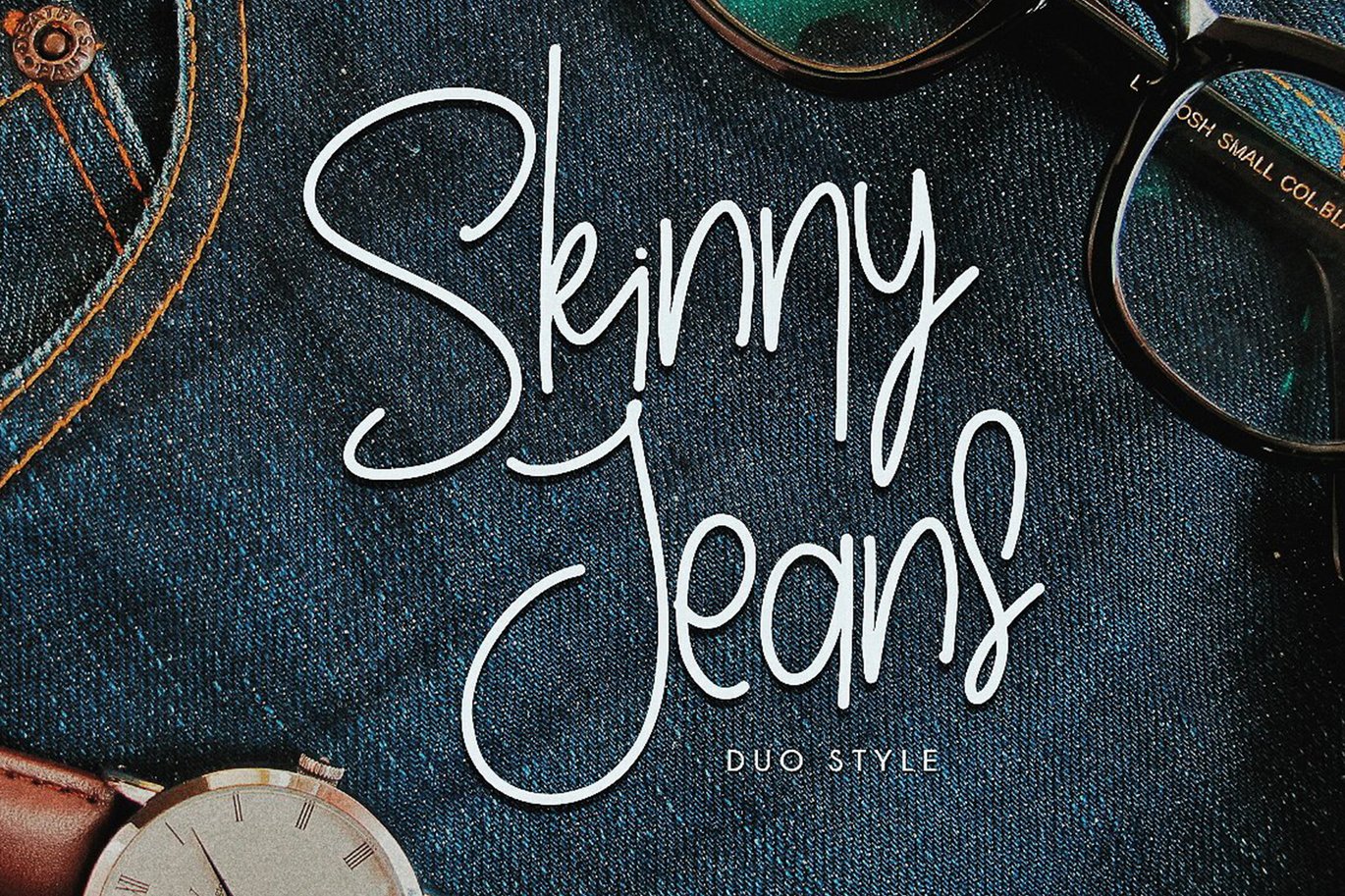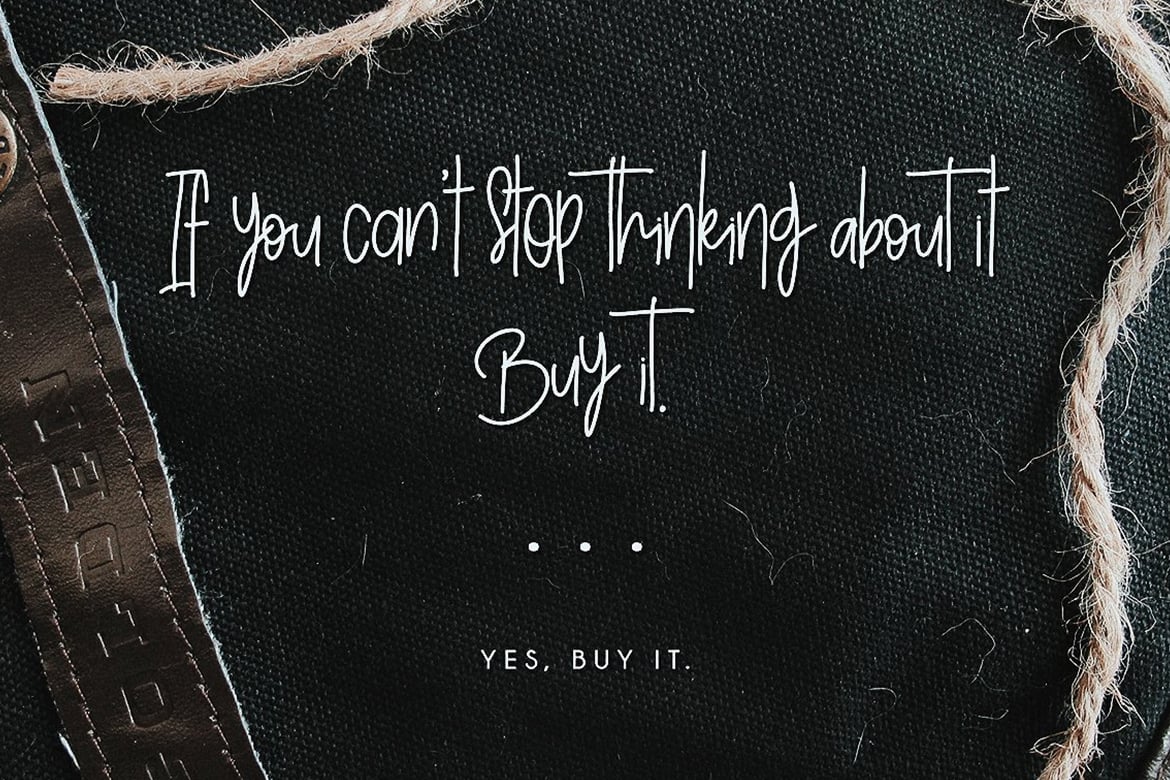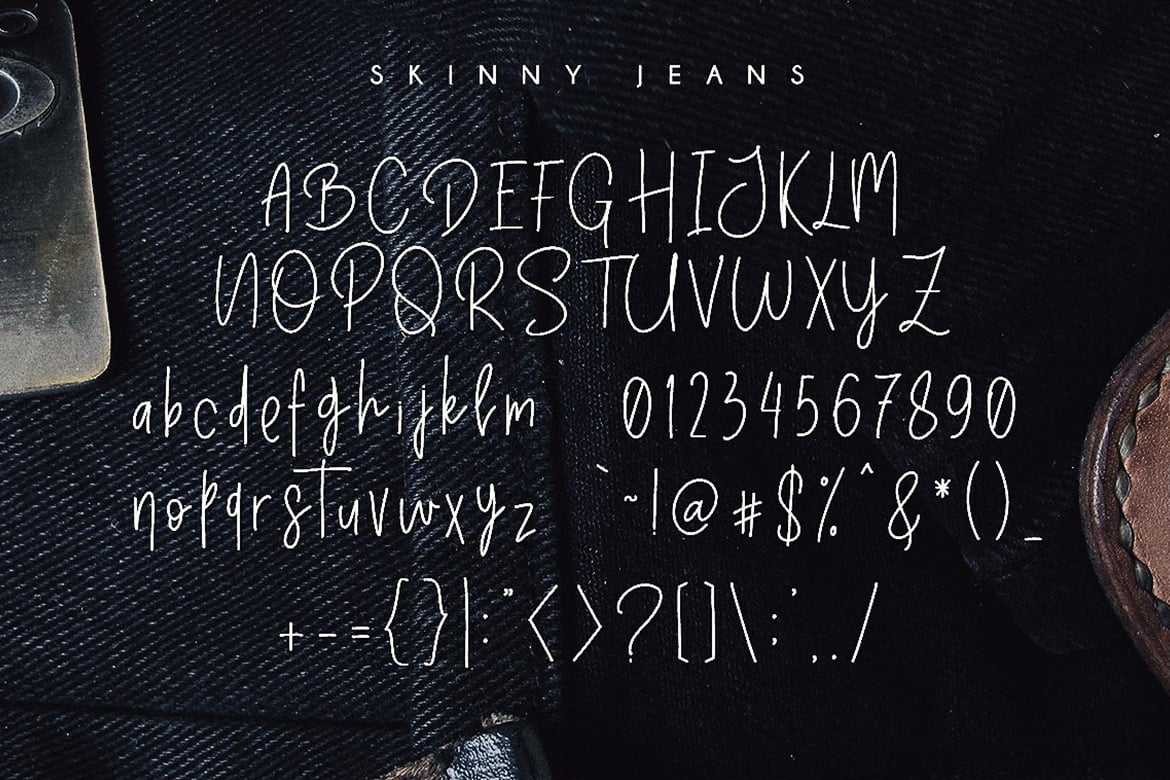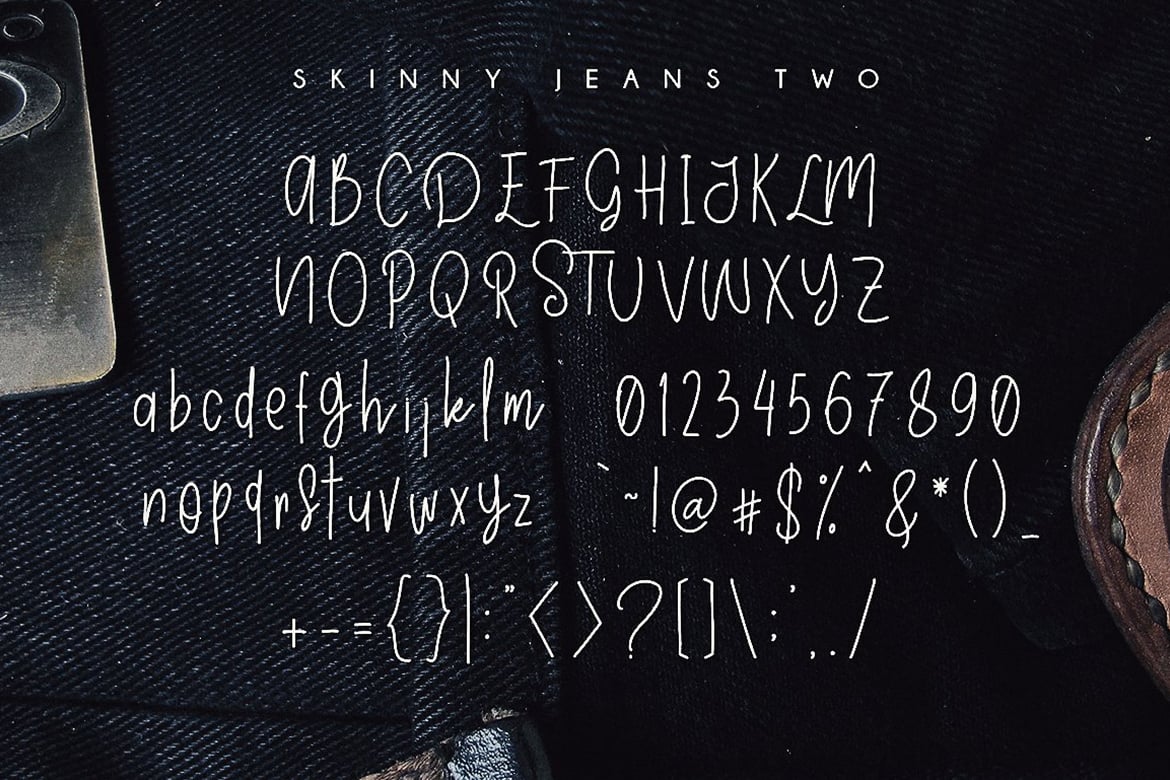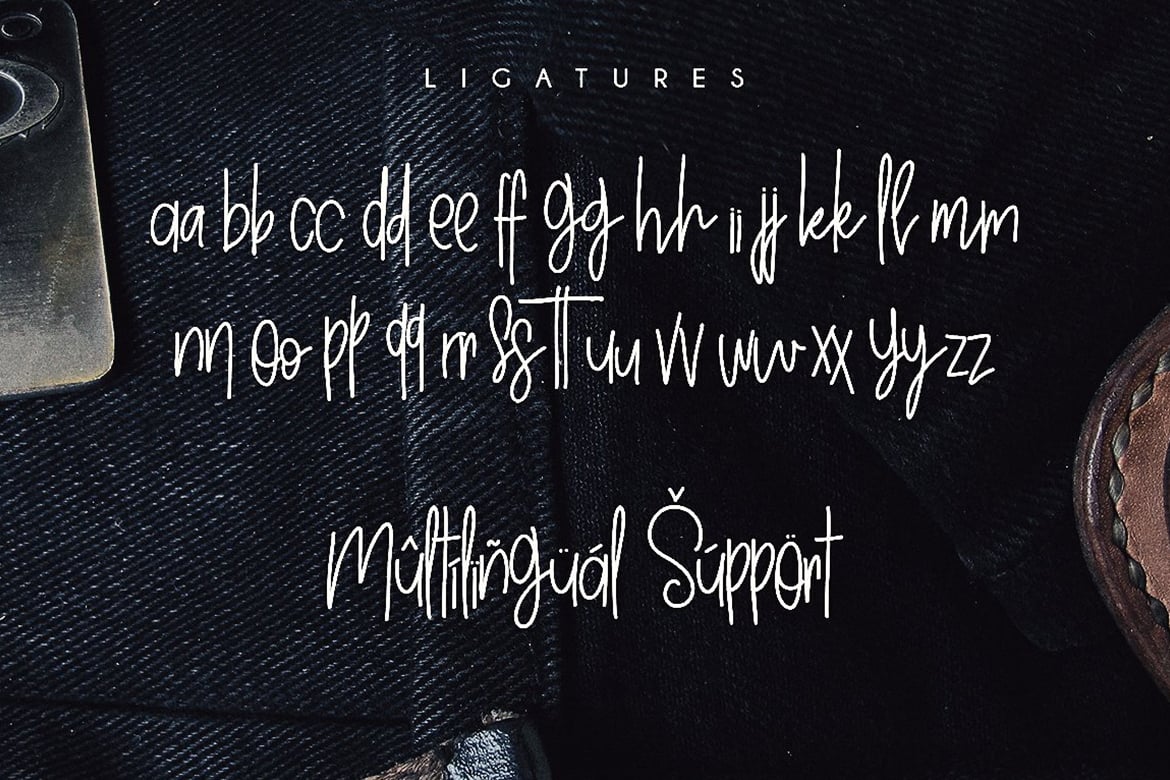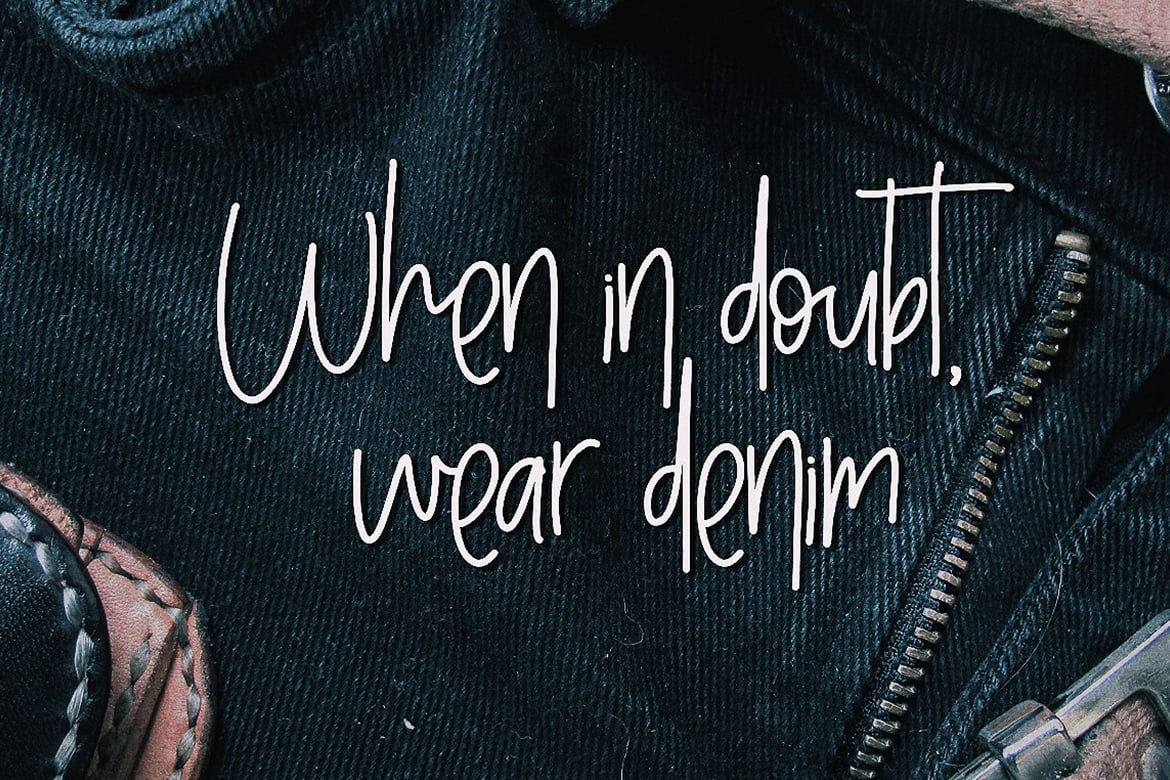
Skinny Jeans – Fashion Handwriting Font
Start from the desperation of my own autograph which is pretty bad, i really love to doodle every word in a autograph style writings. I always want to change my autograph into a better one but i can’t because all of the important documents in my life was signed using that autograph, which i really hate 🙁
So i make this font, with implementation of fast-handwriting ballpoint pen and the flexibility of a skinny jeans (that i love to wear so much everyday), thats what Skinny Jeans – Duo Style come out from.
It comes with 2 different style with the same feel and size, so you can easily mix and match both of them as an alternative characters to fulfil the handwriting feel. Perfectly fit for a logo design, fashion branding, wedding, girly things, handcrafted stuff, etc.